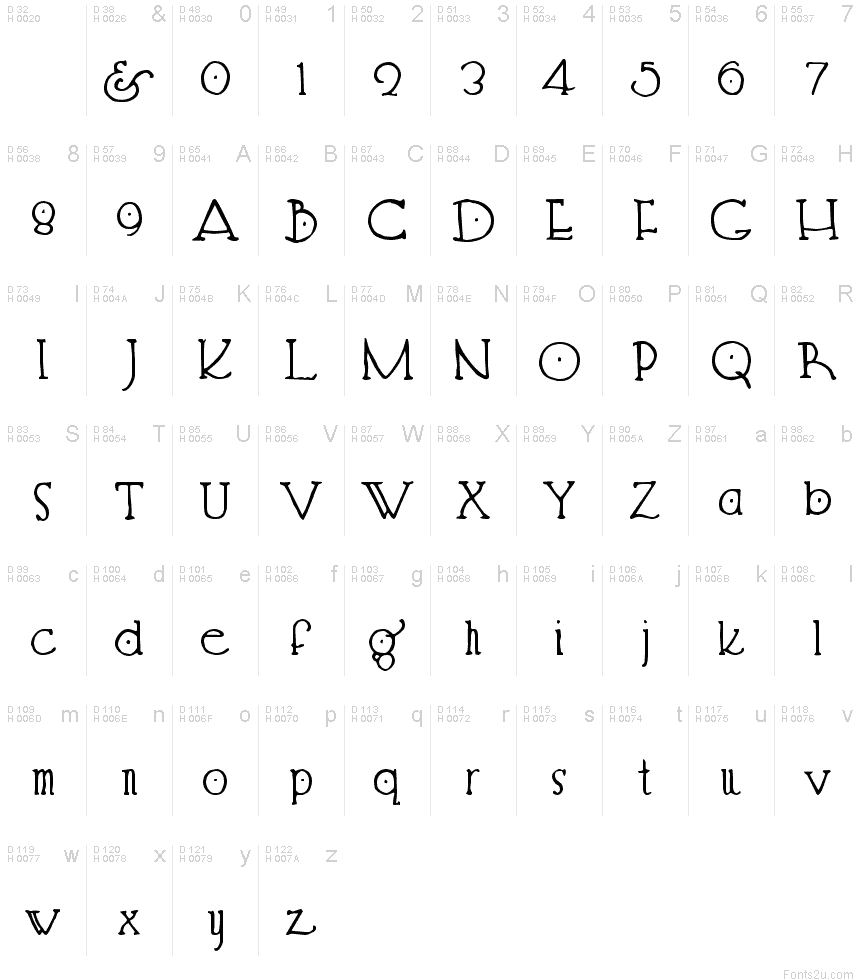
Hendershot
Hendershot font by Rev. Josh Wilhelm is a free decorative display typeface with a hand-drawn, storybook feel. The tall, slightly wobbling letters, pinched curves, and quirky rounded terminals look like they’ve been inked with a felt-tip pen, giving every word a playful, offbeat rhythm. There’s a hint of fantasy and folk art in its shapes, so your titles feel more like chapter headings from a well-loved tale than sterile type on a screen.
Using Hendershot, you can add character to children’s book covers, invitations, crafts packaging, zines, game titles, posters, and school projects. This free font shines when it’s set large and given room to breathe; pair it with a simple sans serif for body text so the whimsical letterforms stay readable while still stealing the spotlight.